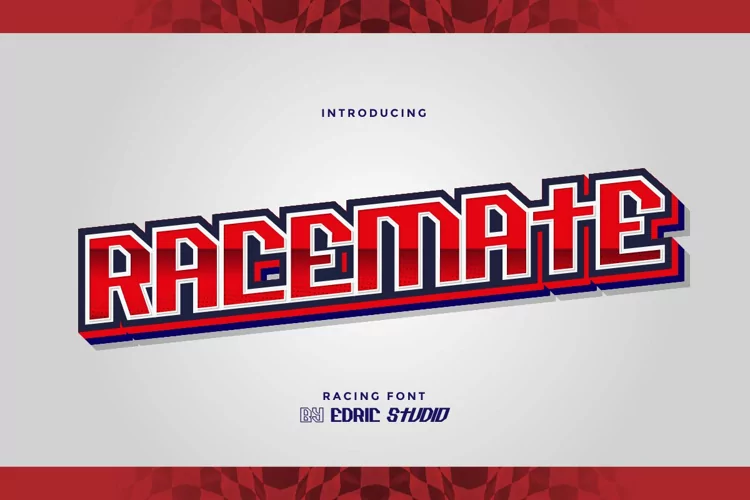
Racemate
Racemate Font is a modern sans serif display font with racing speed car motor style. The designer of this font is Shalsa and Suci from Indonesia.
Racemate Font has three style options : Regular, Italic and Outline. The font will be perfect for branding, logo, sticker, decal, signage, flyer, brochure etc. There are many industries that is suitable for this font : car, racing, automotive, tournament, cup, futuristic startup, etc